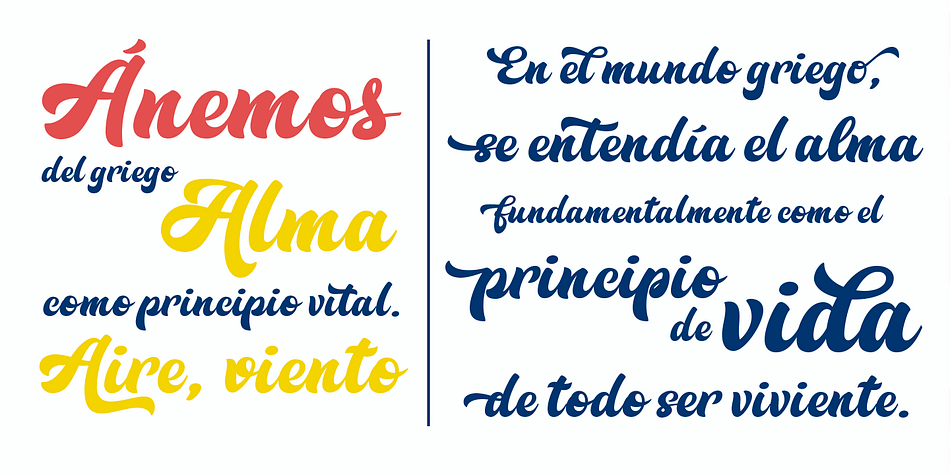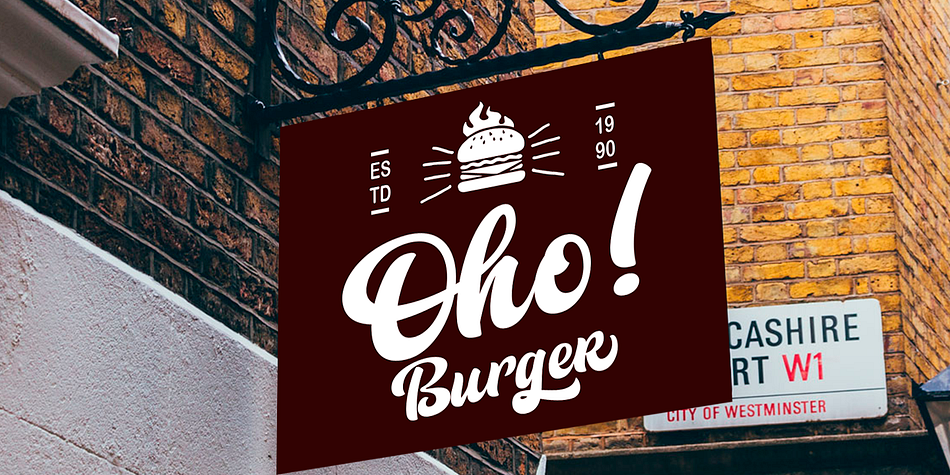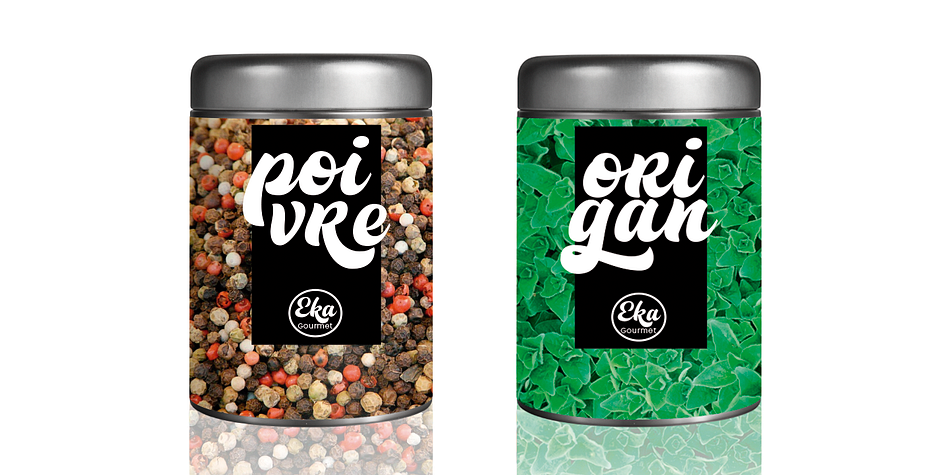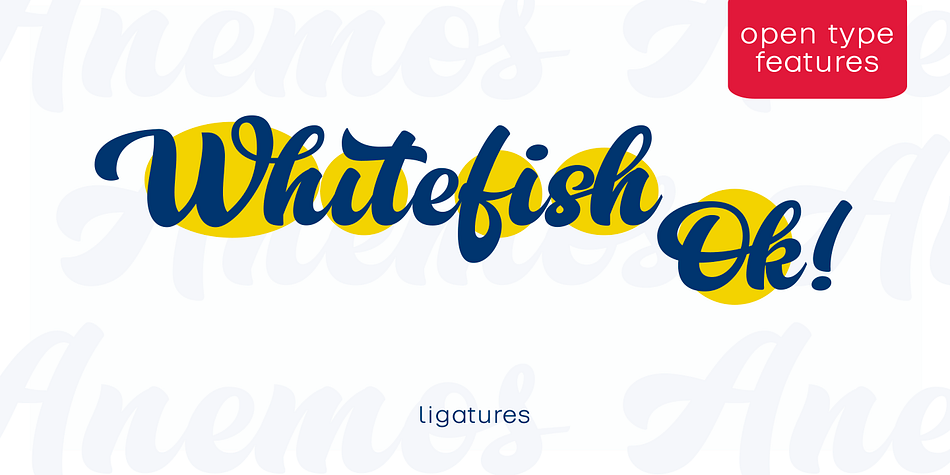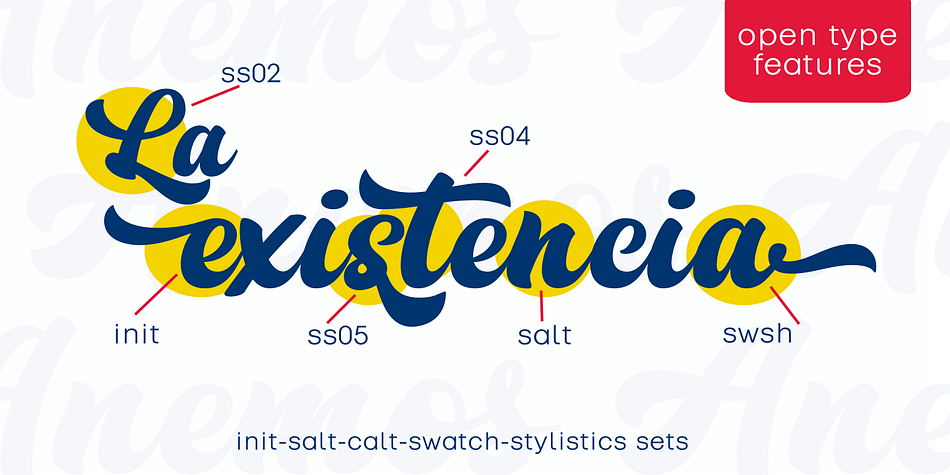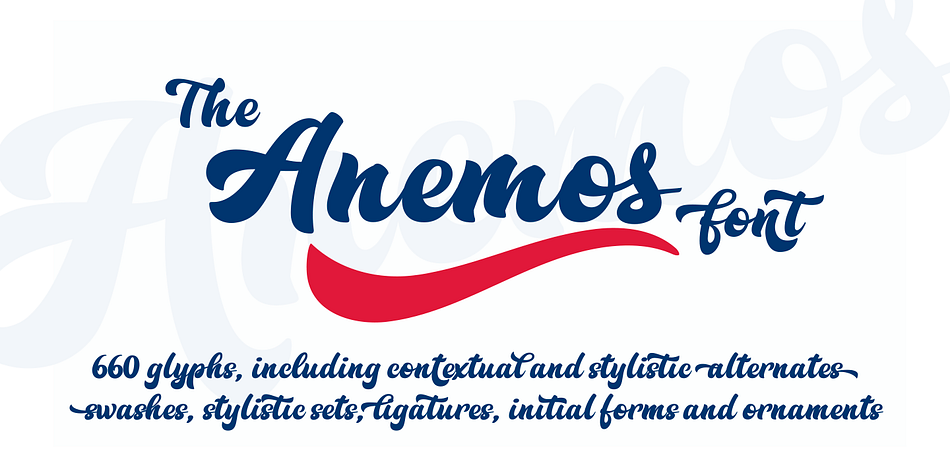
Designed by Carine de Wandeleer, Anemos is a brush script font published by Eurotypo.
With 662 glyphs, Anemos font is the perfect mix of elegant and casual. The Open Type features include a full international character compliment, standard and contextual alternates, swatches, stylistic sets, initial forms, standard and discretionary ligatures (capital letters have at least six different forms and the lower case letters ten). All this makes the text lively and bouncy, without the monotony of obviously repeated letterforms. In addition, we have included some ornaments designed to support the font, some were specially designed to be combined with the letters for a “more calligraphic” effect (access to them through the glyphs palette).
Anemos, like all our fonts, was carefully designed, controlled and tested in both aspects: readability and technical aspects. We take care of the kerning pairs, the optimization of hinting to avoid the pixel grid and the precise programming of the Open Type functions; as well as draw points of smooth curves and the final touch of each glyph.
Anemos font can be the option used to create titles, logos and posters for brand and packaging purposes, invitations, greeting cards, magazines and book covers, children’s material, fashion, and where you want it.